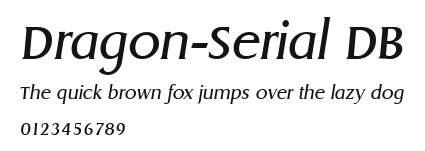
Dragon-Serial DB Preview
• Font Name: Dragon-Serial DB
• Font Style: RegularItalic
• Full Font Name: Dragon-Serial-RegularItalic DB
About Dragon-Serial DB.ttf
Dragon-Serial DB.ttf is a modern, elegant sans-serif font designed for ultimate readability and visual harmony. Perfect for branding, headlines, web design, and print materials.